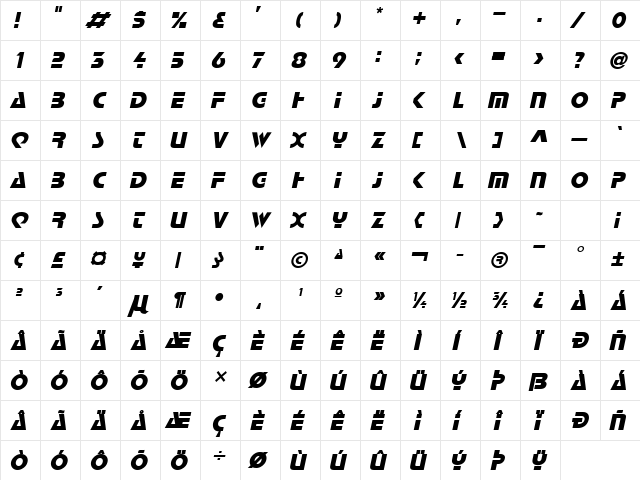
Scottsdale Italic
Design Context for Scottsdale Typeface
Scottsdale is a composed and adaptable typeface that performs quietly and consistently across a wide range of design contexts. The slanted form adds forward momentum and visual energy.
Pro Tip: Try Scottsdale for annotation and caption copy alongside an upright companion — the contrast in angle creates a dynamic but ordered typographic system.